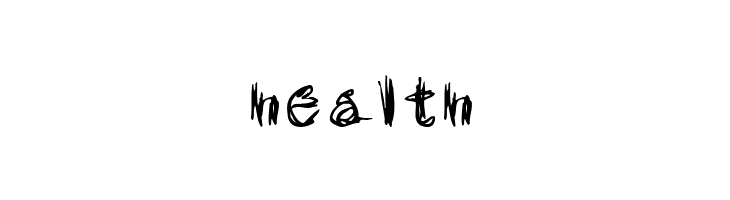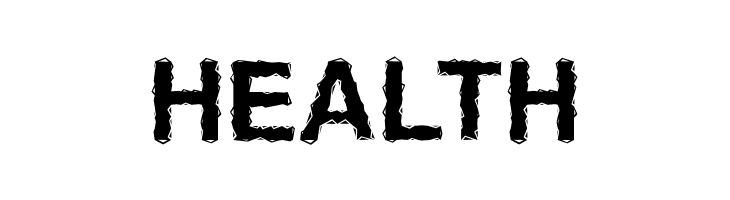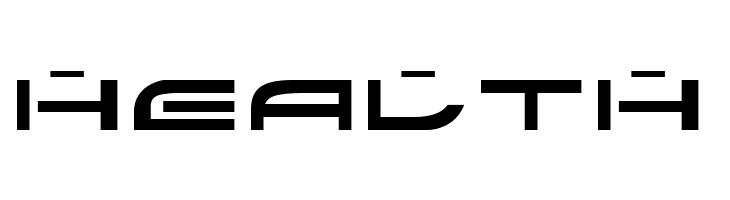
A chaotic, hand-drawn font with irregular, jagged strokes and a graffiti-like style.
A bold, hand-drawn font with a rebellious, punk-inspired aesthetic.
A bold, rebellious collection of punk-inspired symbols and graphics.
A clean, modern sans-serif font with excellent readability and versatility.
A bold, futuristic font with sharp, angular edges and a dynamic style.
A classic serif font with elegant strokes and moderate contrast.
Elegant serif font with a slight italic slant, perfect for formal and creative uses.
Decorative bird-themed symbols with intricate designs in circular frames.
A classic, elegant font with intricate serifs and a Roman inscription style.
A classic serif typeface with elegant serifs and a timeless design.
A modern, minimalist outline font with uniform stroke widths and geometric precision.
A rounded, bold font with a modern and approachable style.
A sleek, modern font with geometric precision and a futuristic flair.
A sleek, modern font with geometric influences and sharp, precise lines.
An elegant serif font with a classic italic slant and medium contrast.
A modern, rounded font with a futuristic and streamlined design.
A modern, elegant font with sharp, angular lines and geometric shapes.
A bold, rounded font with a modern and futuristic style.
A sleek, minimalist font with thin, uniform strokes and a modern aesthetic.
A sleek, modern hairline italic font with elegant and fluid characteristics.